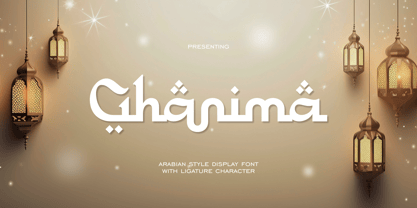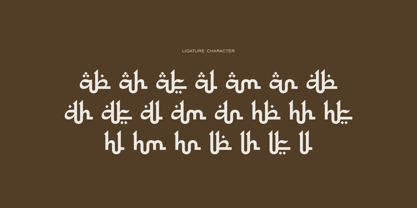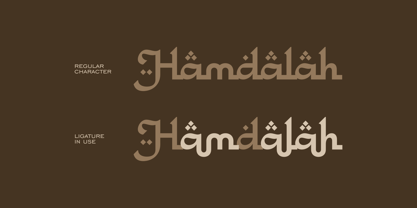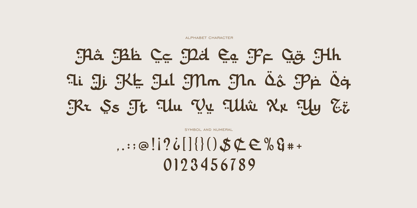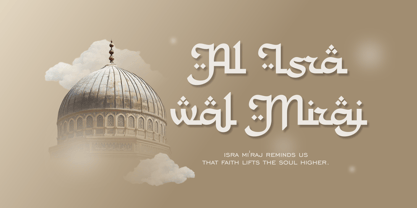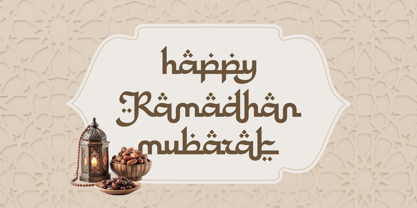
Ghanima
por Runsell Type
La familia tipográfica Ghanima fue diseñada por Satia Hayu Prabowo y publicada por Runsell Type. Ghanima contiene 1 estilos.
Ghanima inspired from the timeless beauty of Arabic script, this display font captures the essence of traditional calligraphy while embracing a bold, modern twist. With its flowing, sweeping curves and geometric elegance, this font exudes a sense of sophistication and cultural richness. Ideal for headlines, posters, logos, and branding that aim to evoke a sense of heritage and contemporary flair, it brings a distinctive, exotic touch to any design. The balance between fluidity and structure makes this font perfect for projects that demand attention and a strong visual presence.